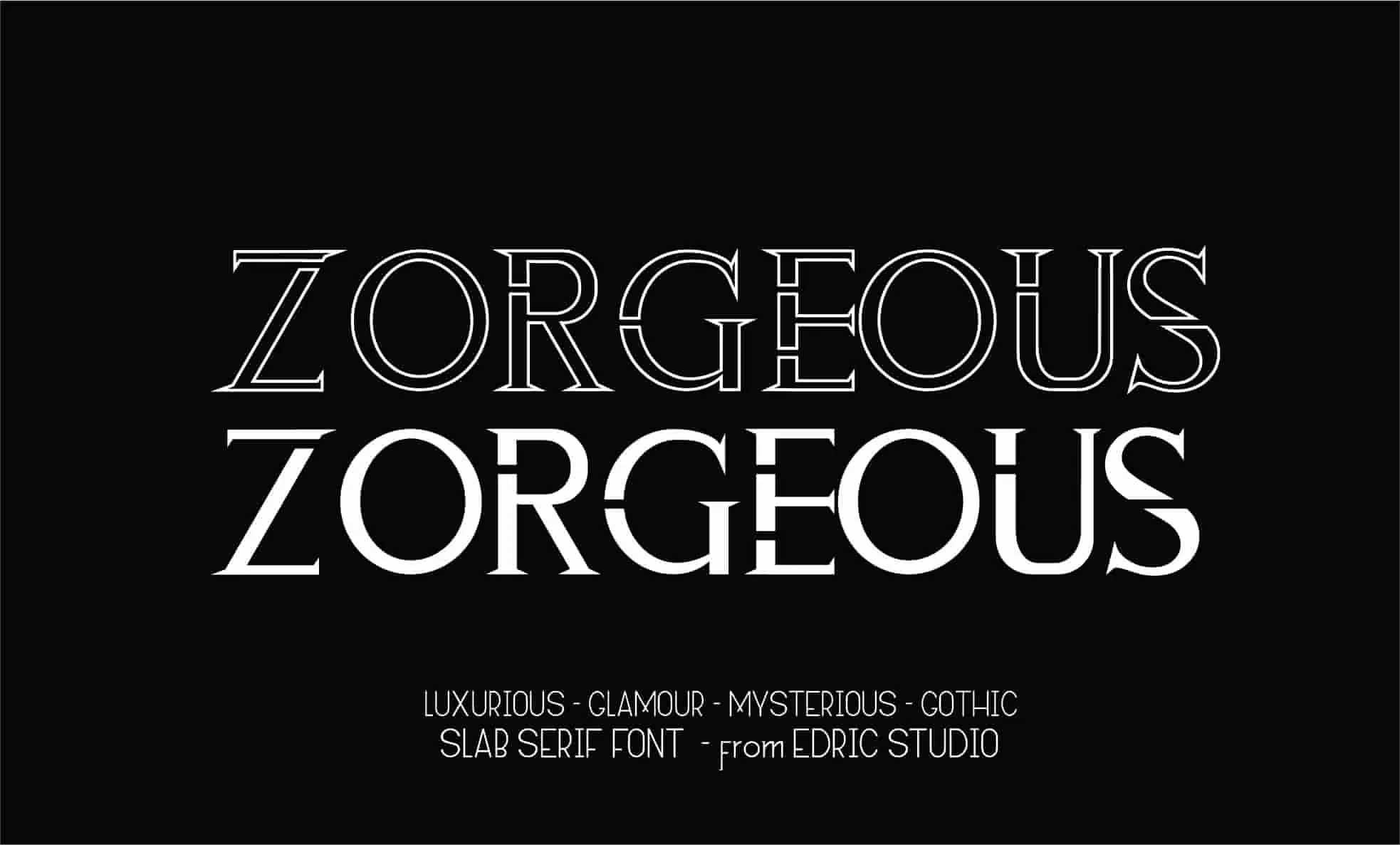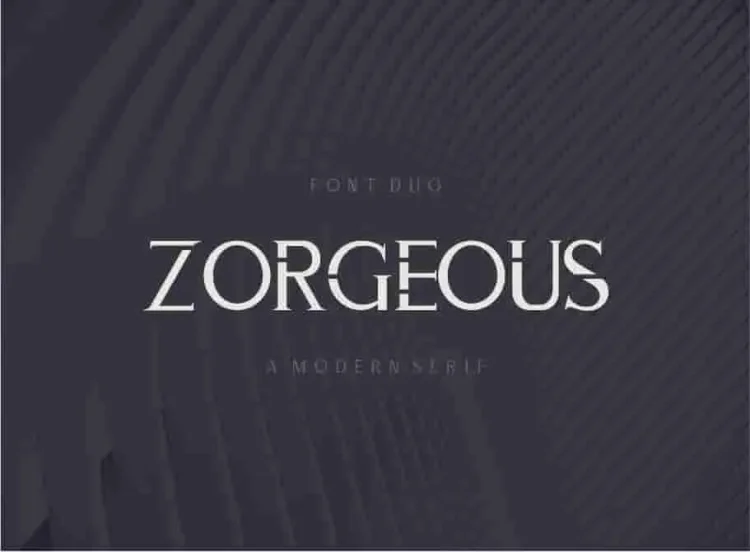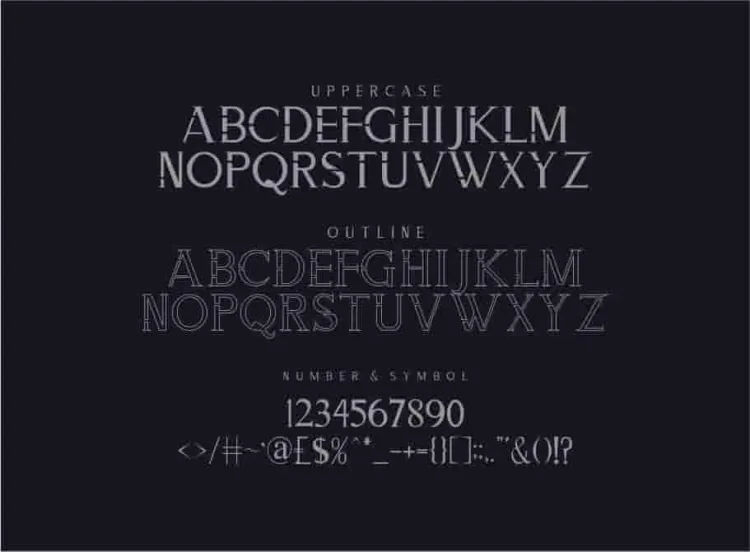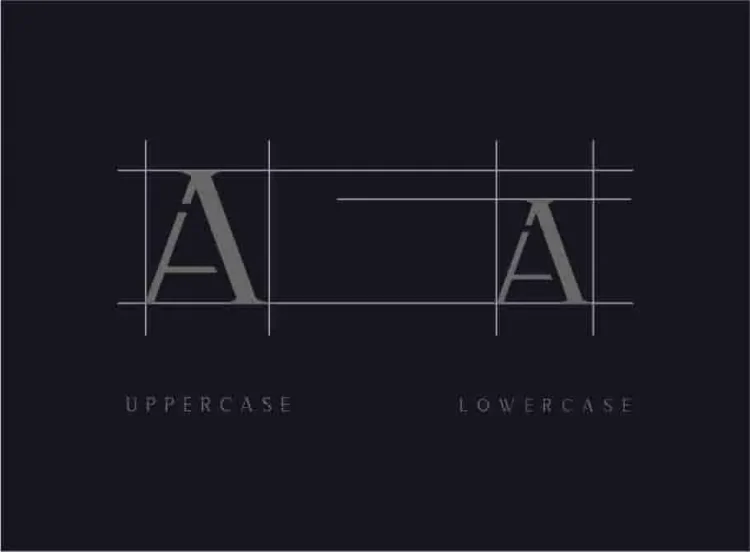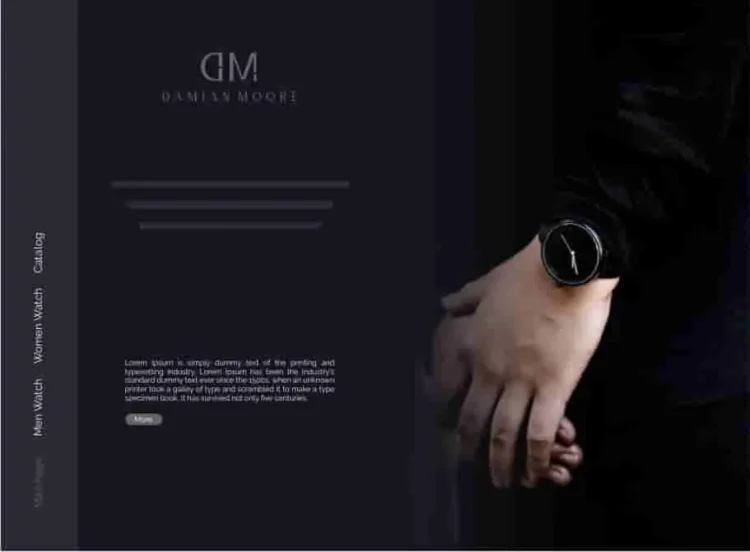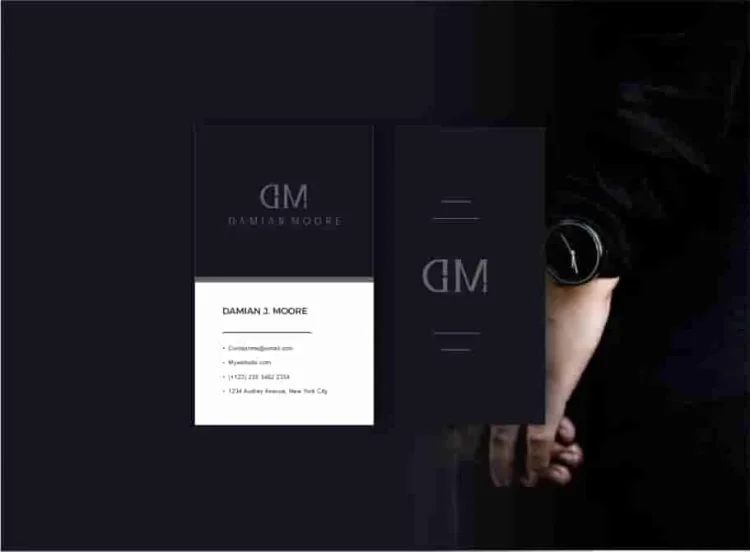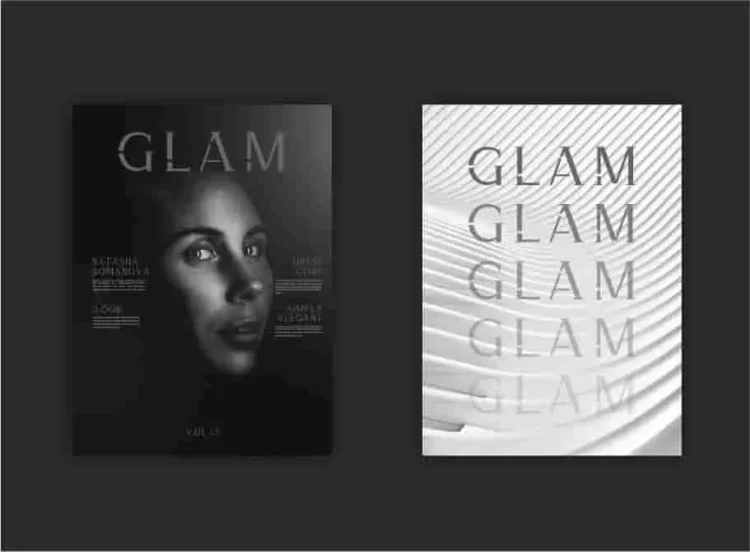
ZORGEOUS Slab Serif Display Font
Zorgeous Regular
Zorgeous Outline
ZORGEOUS Font is a bold and elegant Slab Serif display typeface with a stunning gothic and blackletter-inspired shape. Moreover, it combines mystery, horror, classic, retro, and vintage styles in one powerful design. It offers a glamorous gothic style with a luxurious touch, making your designs look exclusive and elegance.
Besides that, Zorgeous Font comes with two stunning styles: solid and outline. The solid version creates a strong, bold impression. The outline version gives a modern and elegant effect. This dual style allows designers to combine both variants in branding projects, posters, merchandise, or editorial layouts to create an impressive layered typography design.
Zorgeous Font includes uppercase and lowercase letters, numbers, punctuation, and multilingual support. As a result, it gives you full creative freedom to design anything from horror movie titles to gothic branding and vintage packaging. Each character has a sharp, elegant cut, giving your typography a mysterious and timeless aesthetic.
Designers love using Zorgeous for logos, horror posters, classic branding, editorial layouts, merchandise, and striking social media graphics. Its unique slab serif structure allows you to create designs that look professional and instantly recognisable. Zorgeous Font belongs to the slab serif, blackletter, grunge, and retro font categories.
• Elegant gothic slab serif style with a mysterious touch
• Bold letterforms perfect for dramatic branding
• Includes uppercase, lowercase, numbers, punctuation, and multilingual support
• Ideal for branding, logos, headlines, packaging, and posters